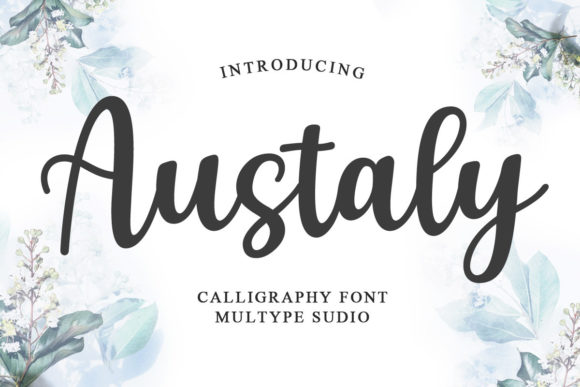
The Designer’s Delight: Austaly Font
I’ll never forget the time I was working on a wedding invitation project, and my client asked for a font that was both elegant and playful. I scoured the internet, tried countless fonts, but nothing seemed quite right. That was until I stumbled upon Austaly Font. It was like a breath of fresh air – a beautiful, modern handwritten font that ticked all the boxes. In this article, I’ll share my experience with Austaly, its features, and how to make the most of it in your design projects.
A Personal Review of Austaly Font
Austaly Font has quickly become one of my go-to fonts for creative projects. Here’s what I love about it:
- ✨ Unique Characteristics: Austaly boasts fun characters and unique features that add a personal touch to any design.
- ✅ Versatility: It’s perfect for a wide range of projects, from branding and logos to social media posts and wedding designs.
- 💫 Modern and Elegant: Austaly strikes the perfect balance between modernity and elegance, making it suitable for both digital and print designs.
Of course, no font is perfect, and Austaly has a few minor quirks:
- 🤔 Limited Multilingual Support: While Austaly covers the basics, it might not support all languages or special characters.
- ⚠️ Occasional Kerning Issues: As with any font, you might encounter kerning issues, especially when using it at smaller sizes.
The Story Behind Austaly Font
Austaly Font was created with the intention of bringing a touch of personality to design projects. Inspired by modern calligraphy and handwritten scripts, Austaly’s designer aimed to craft a font that was both elegant and approachable. The result is a versatile font that can be used in a wide range of creative applications.
Q: What type of projects is Austaly Font best suited for?
Austaly Font is perfect for branding projects, logos, social media posts, wedding designs, advertisements, product packaging, watermarks, invitations, stationery, and any projects that require a handwriting touch.
Q: Does Austaly Font support OpenType features?
Yes, Austaly Font supports OpenType features, including glyphs and stylistic alternates. This allows you to add more variety and personality to your designs.
Q: Is Austaly Font suitable for body text?
While Austaly Font is beautiful and elegant, it’s best suited for headlines, titles, and short paragraphs. For body text, you may want to choose a more traditional font for better readability.